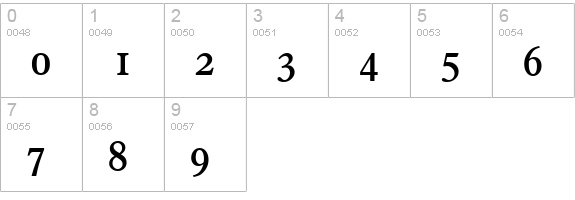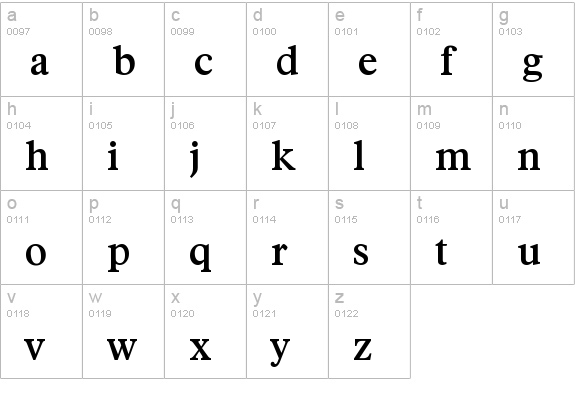
FranciscoSerial-Medium-Regular is a balanced, medium-weight variant in the FranciscoSerial typeface family \xE2\x80\x94 well suited to sub-headlines, navigation, and balanced editorial work.
FranciscoSerial-Medium-Regular is a versatile and modern font that exudes elegance and sophistication. With its clean lines and balanced proportions, this font is perfect for a wide range of design projects, from branding to editorial design. The medium weight of the font strikes the perfect balance between readability and impact, making it suitable for both headlines and body text. What sets FranciscoSerial-Medium-Regular apart is that it is available for free download at FontsMarket.com. This means that you can easily access this high-quality font without any cost, making it an excellent choice for designers on a budget or anyone looking to add a touch of sophistication to their projects. Don't miss out on the opportunity to elevate your designs with FranciscoSerial-Medium-Regular - download it for free today!